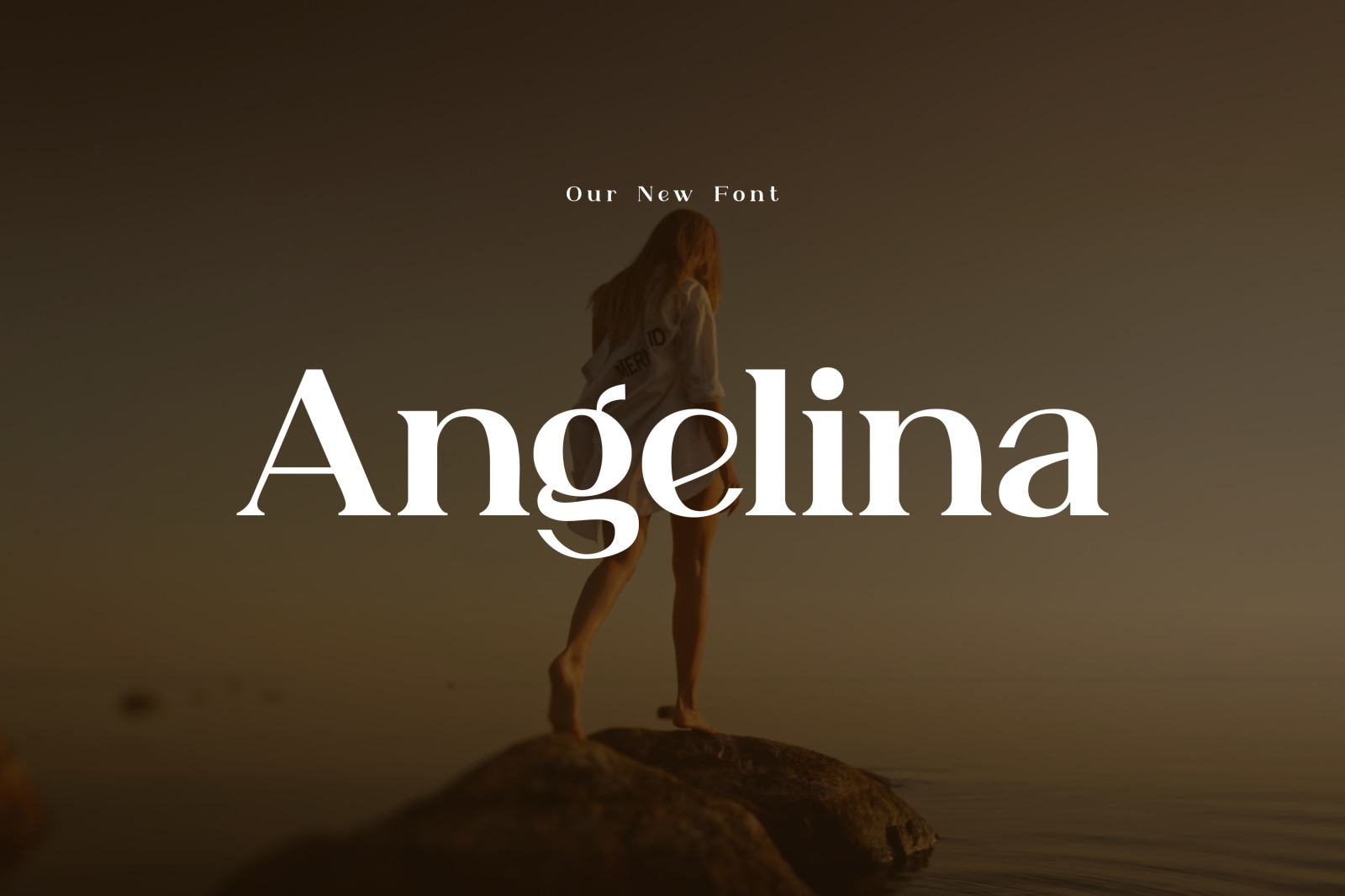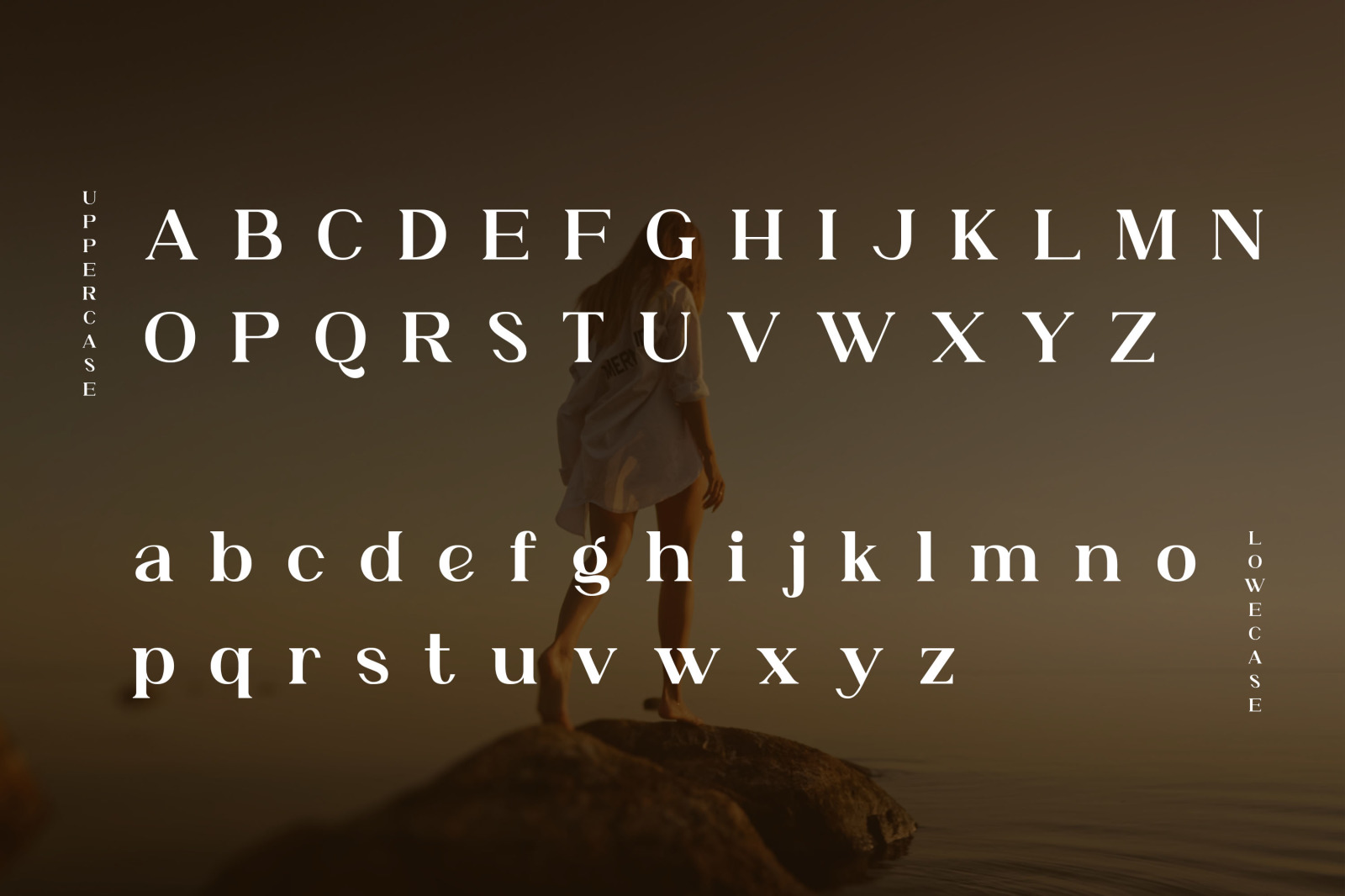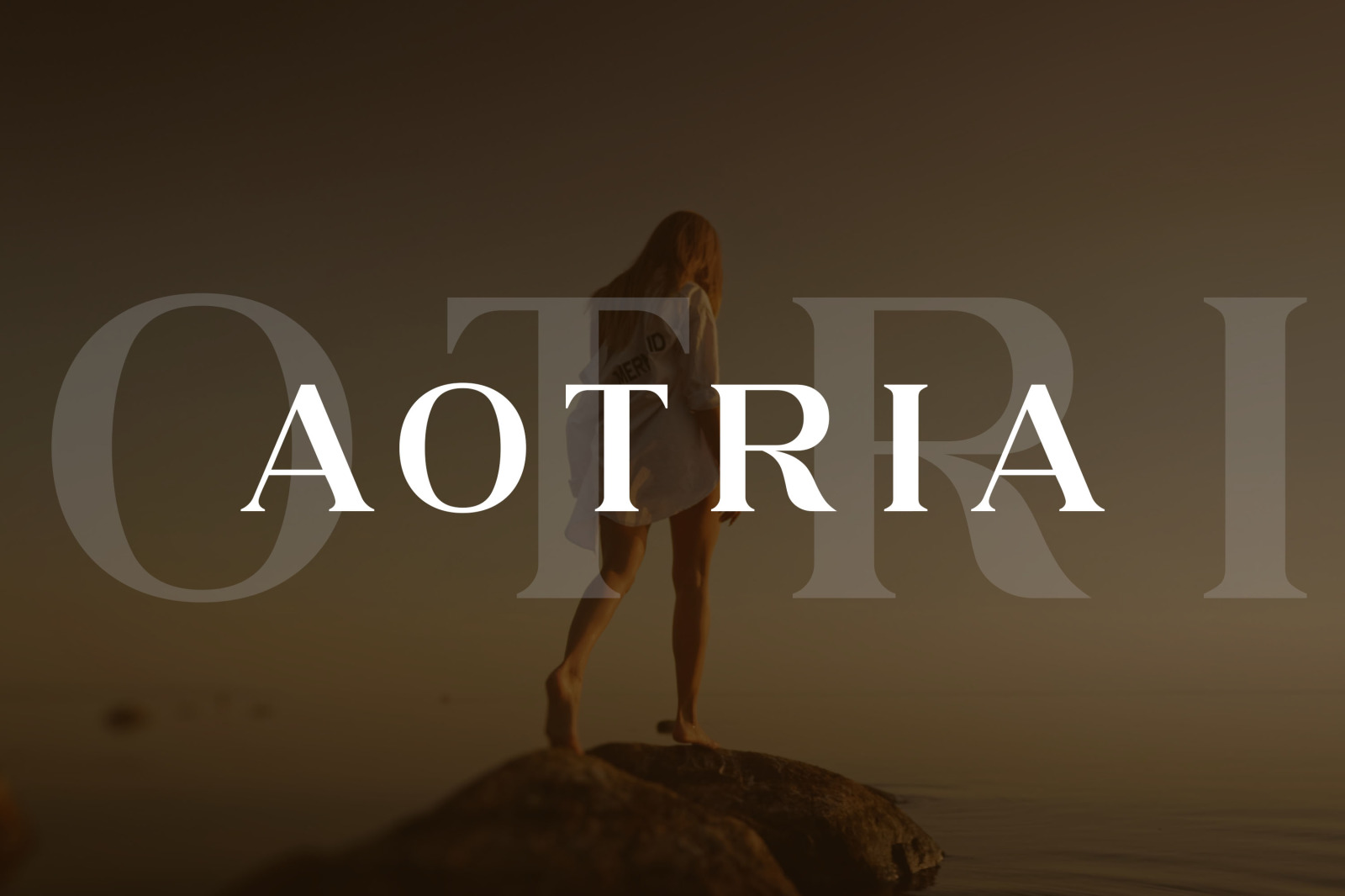
Angelina Font
Angelina is a modern and stylish serif font. It will elevate a wide range of crafting ideas, from cards, to branding, labels and much more.It is bold serif font. This font is suitable for designs such as t-shirts, sportswear, logos, advertisements, clothing, and more. Using it for crafting, digital designing, presentations, or greeting card making.